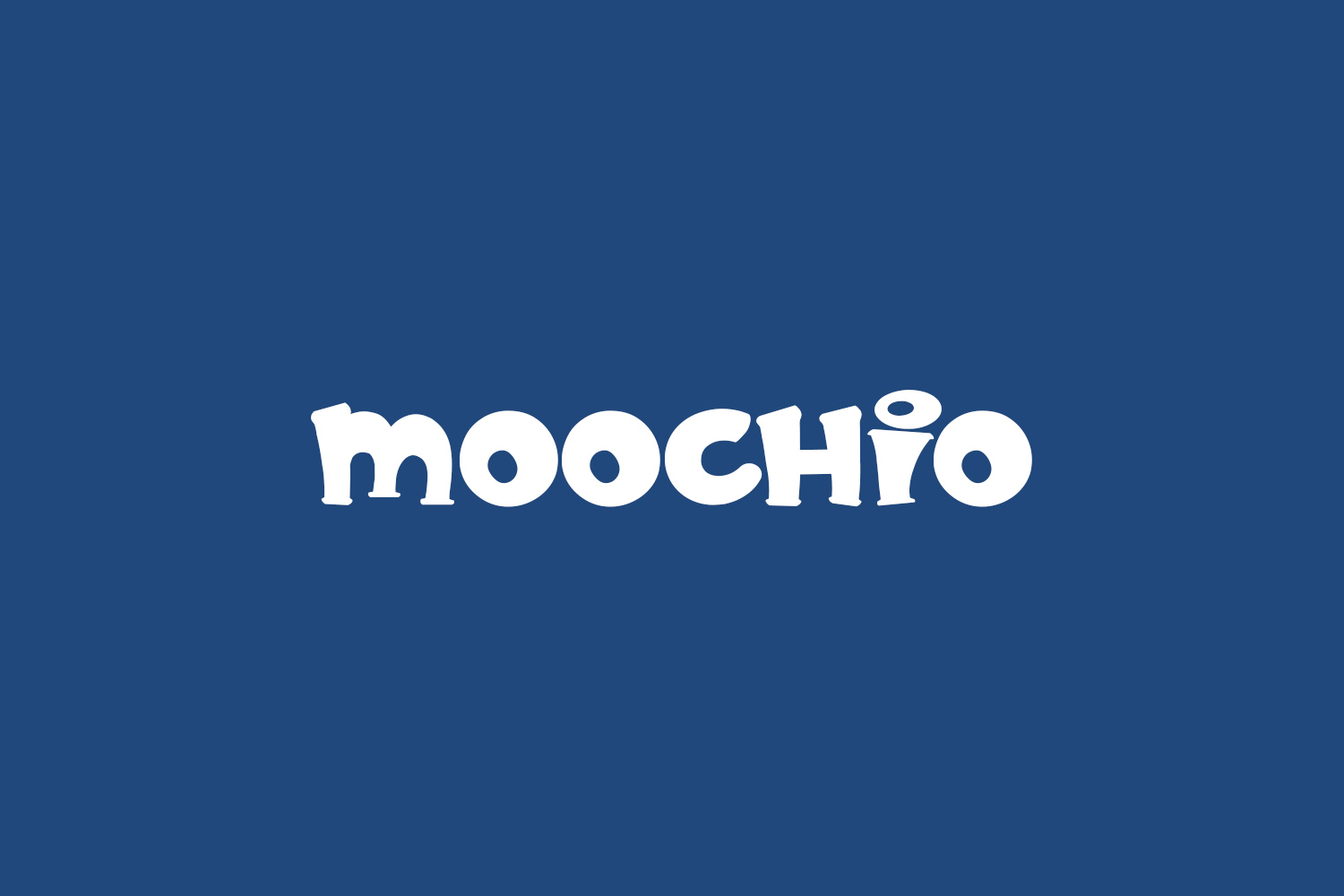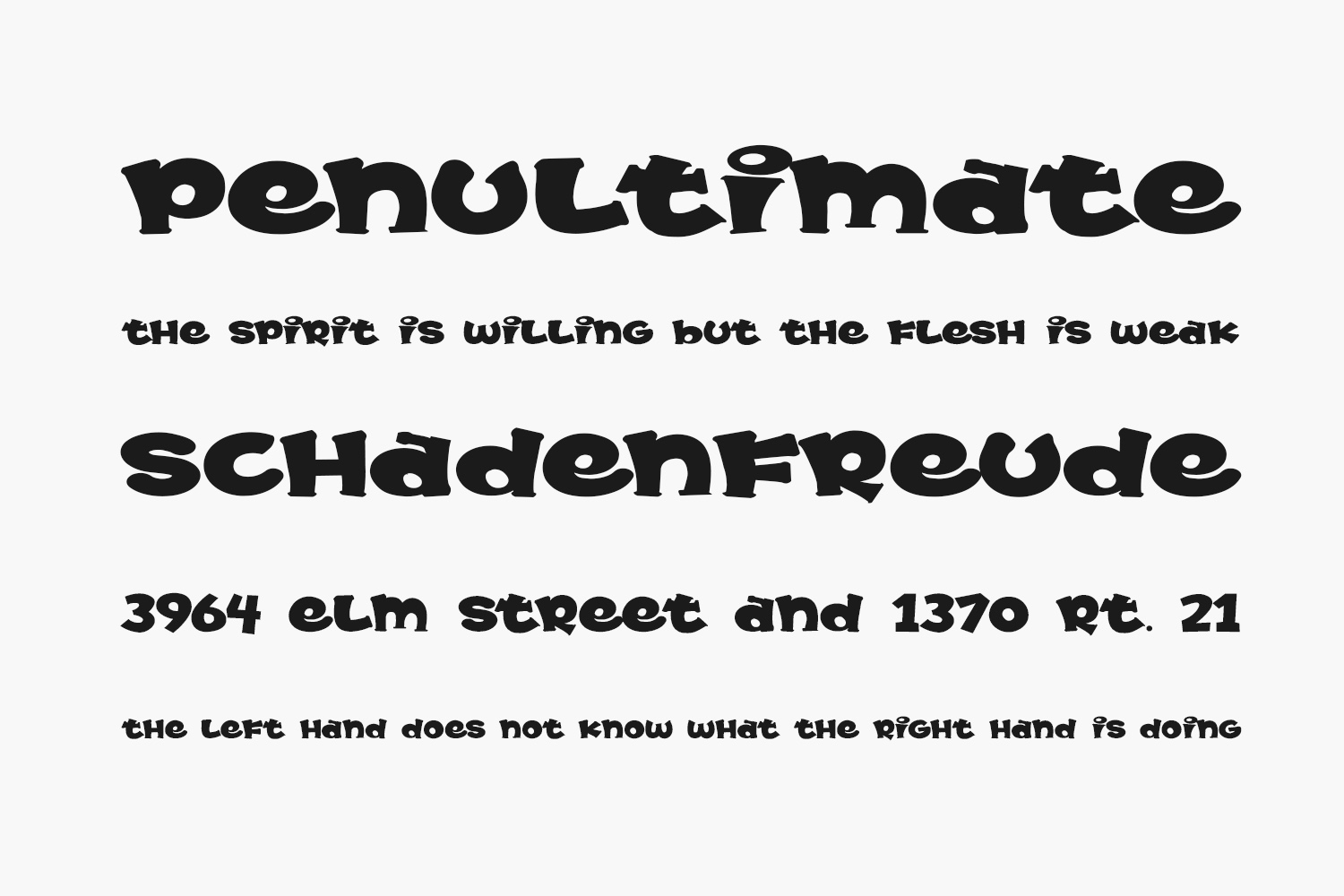
Moochio Free Font is a cute, playful display font. Whimsical and a bit quirky, this font will brighten up each of your designs. Add it confidently to your projects, and you will love the results. Moochio Free Font was designed by Brothers Ground Studio and is free for personal use only. Please purchase the full version for commercial use.